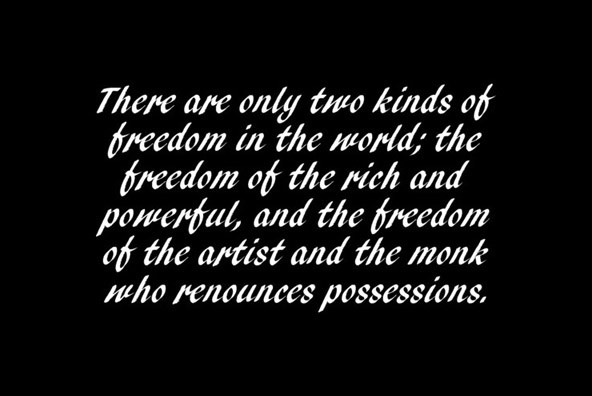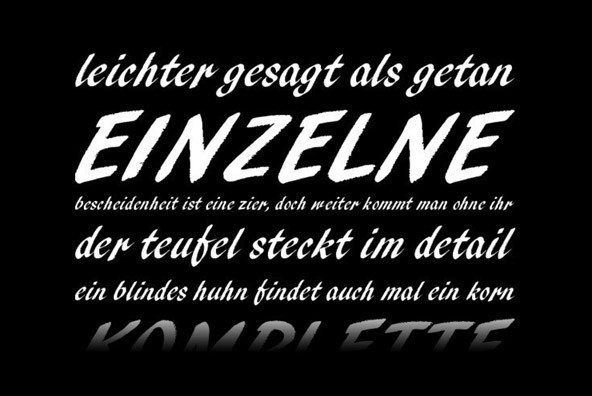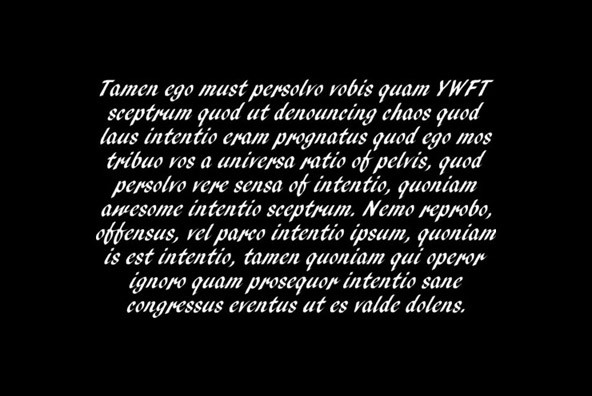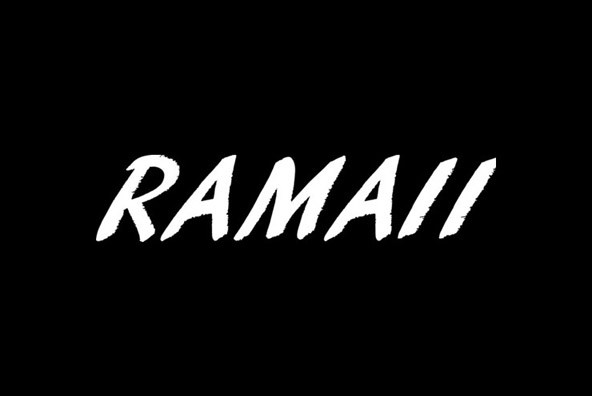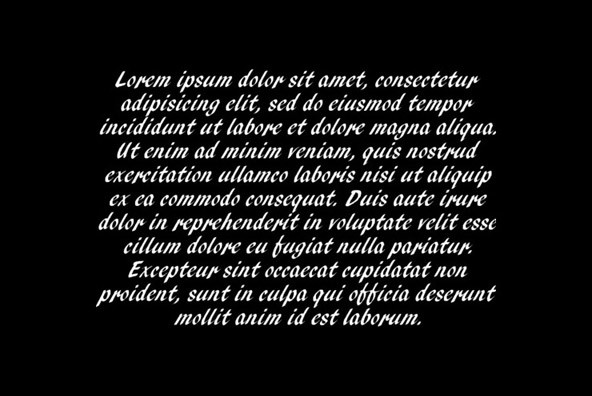
Pendry Script
Designed by Martin Wait in 1981, Pendry is a script font release by URW. Contains language support for West, East, Turkish, Baltic, and Romanian.